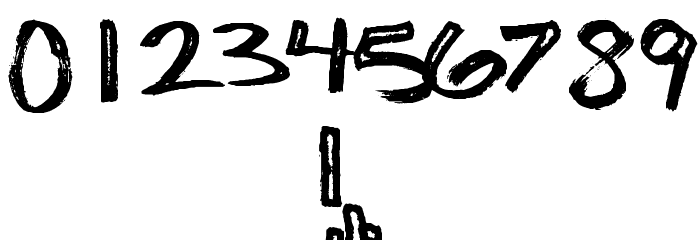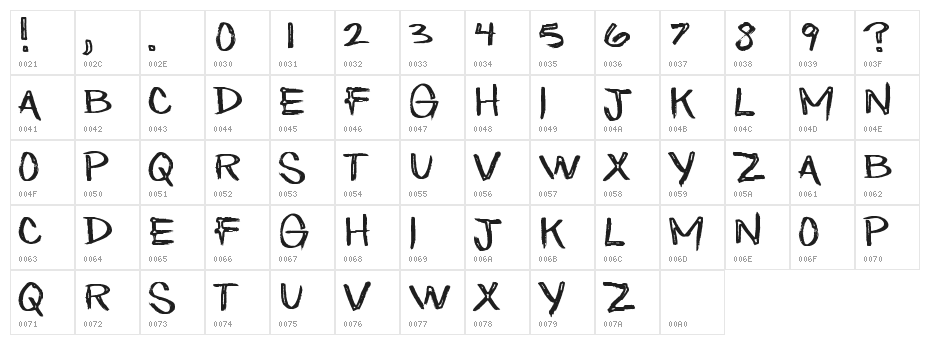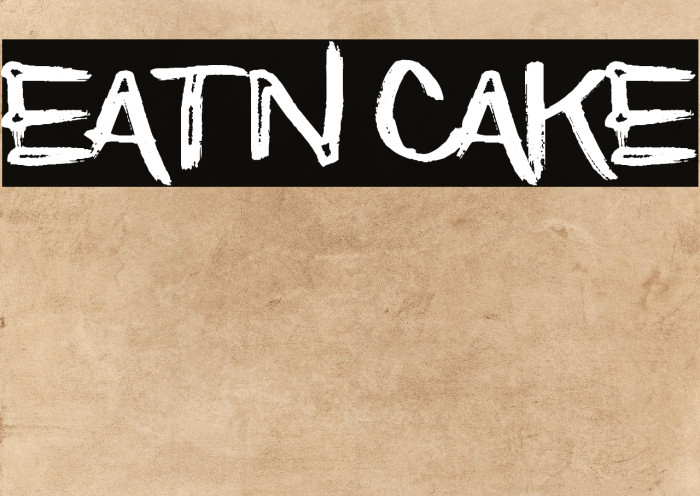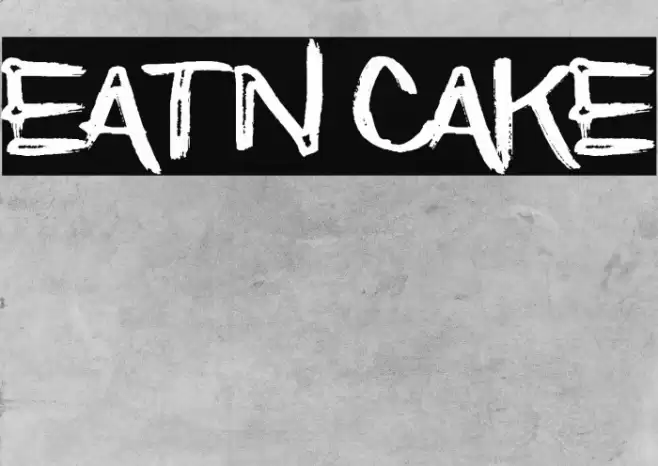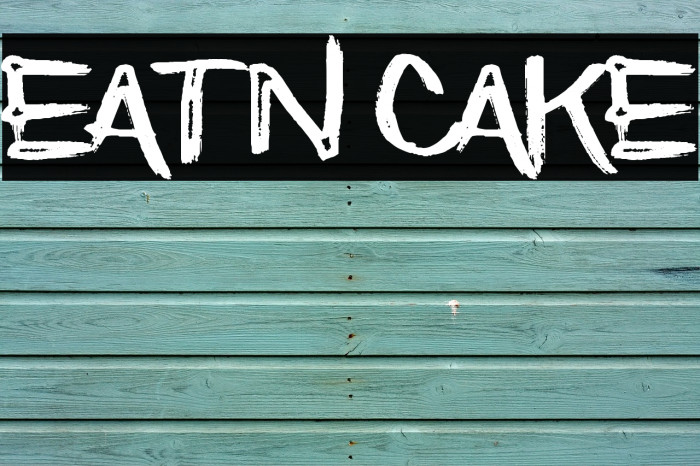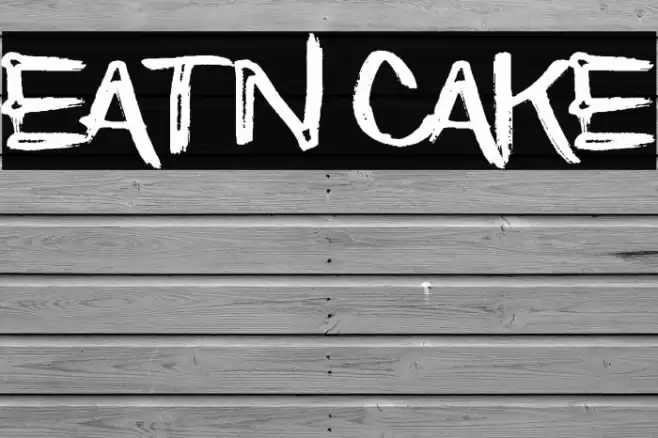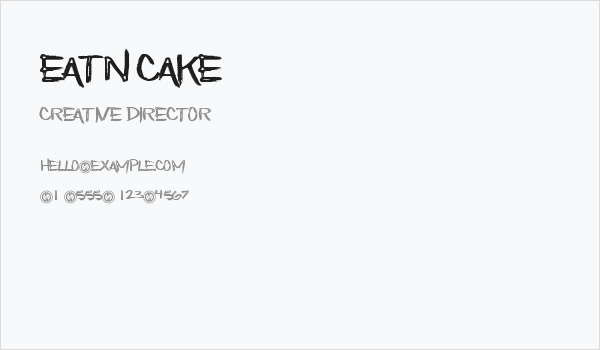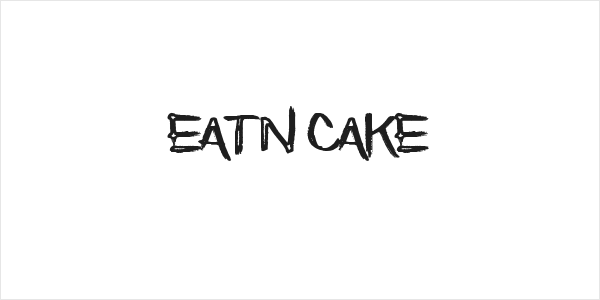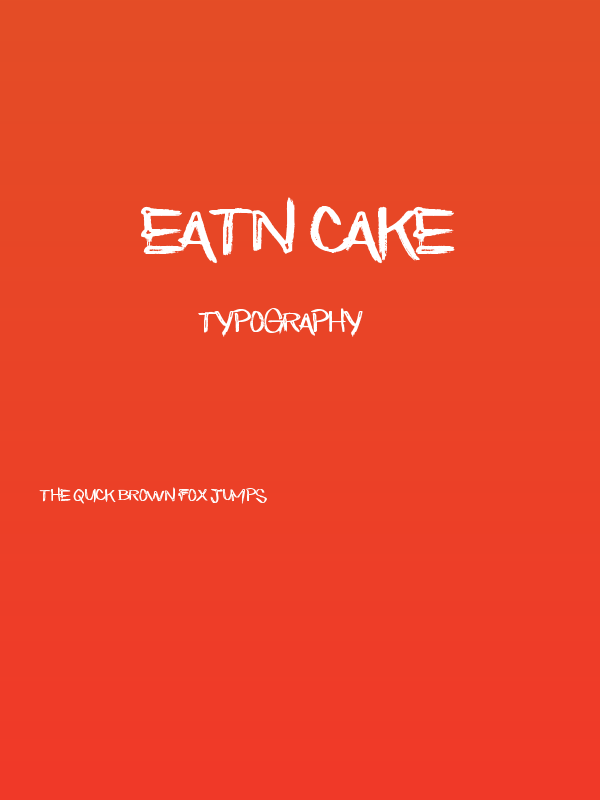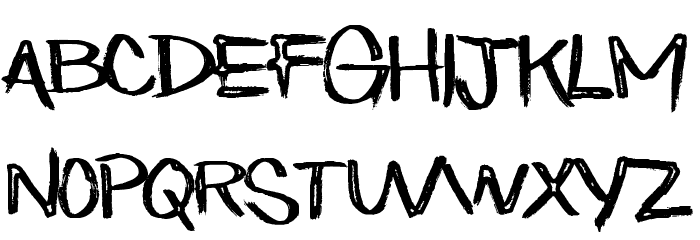
Eatn Cake Font
Eatn Cake Description
This font features a bold, expressive style with a hand-drawn appearance. The letters are characterized by uneven strokes and a slightly distressed look, giving it a raw and energetic feel. The uppercase and lowercase letters maintain a consistent style, with the uppercase being slightly larger and more pronounced. The numbers follow the same aesthetic, with a playful yet edgy design. Special characters are included, adding versatility to the font. The overall appearance is dynamic and eye-catching, suitable for projects that require a strong visual impact.
| Proposed Projects | Ideal for posters, album covers, graffiti art, and any project needing a bold, artistic touch. |